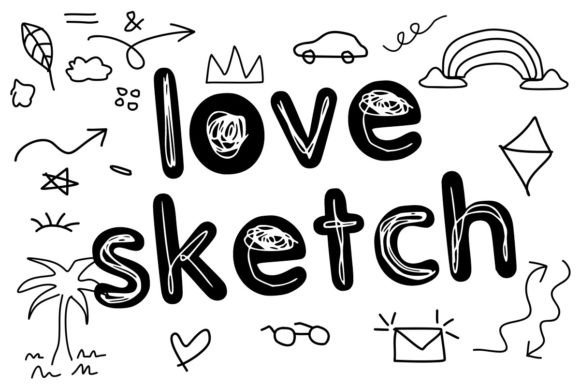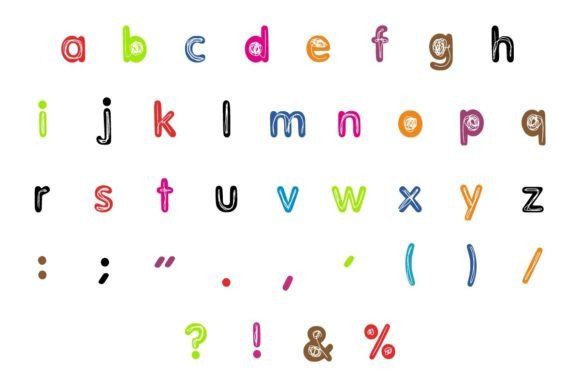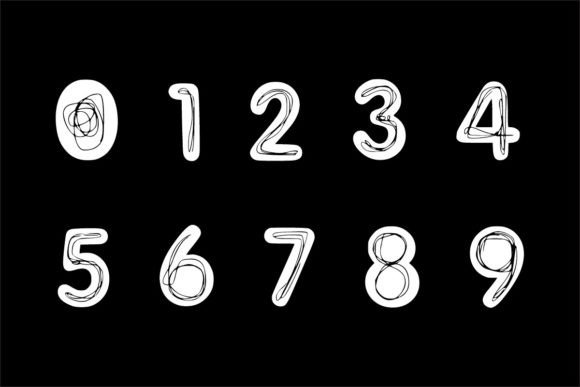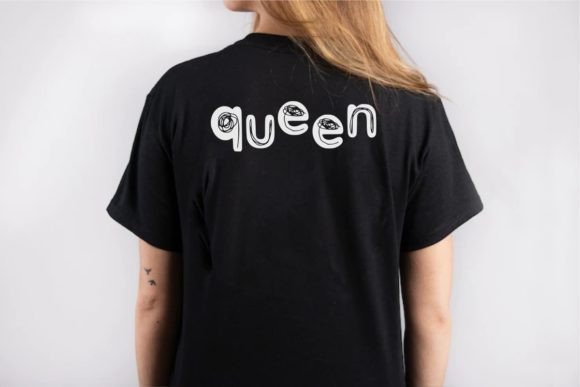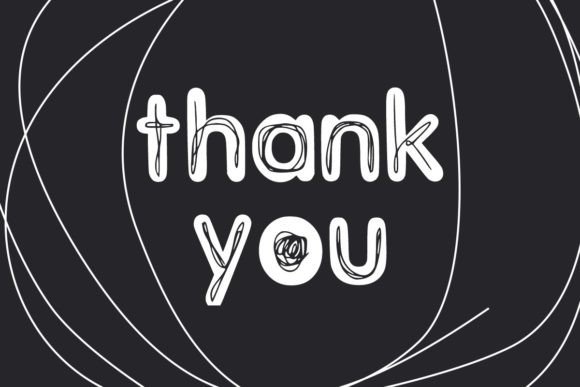
The Ultimate Guide to Drawing Book Font: Adding a Relaxed Touch to Your Creations
I’ll never forget the time I was working on a project for a client who wanted a fun, laid-back vibe for their brand. I had spent hours browsing through font libraries, but nothing seemed quite right. That was until I stumbled upon the Drawing Book font. Its cute, simple, and friendly lowercase handwritten display style instantly clicked with me, and I knew I had found the perfect fit. In this article, I’ll share my love for this font, its features, and how to make the most of it in your designs.
A Personal Review of Drawing Book Font
- ✨ The informal style and casual vibe make it perfect for projects that require a relaxed touch.
- ✅ The font is highly legible, even at smaller sizes.
- 💕 The cute and friendly aesthetic is sure to appeal to a wide range of audiences.
- 🎨 It’s incredibly versatile and can be used for various design projects, from branding to crafts.
While Drawing Book font is an excellent choice for many projects, there are a few things to keep in mind:
- ⚠️ The font is limited to lowercase letters, which might be a drawback for some projects.
- 🤔 Some users might find the font too casual or childish for certain applications.
One of the best things about Drawing Book font is its support for OpenType features and glyphs. These features allow you to add more variety and personality to your text. Some common OpenType features include:
- Ligatures: These are special character combinations that can be used to replace certain letter pairs.
- Stylistic alternates: These are alternative glyphs that can be used to add more variation to your text.
- Swashes: These are decorative elements that can be used to add more flair to your text.
The Backstory of Drawing Book Font
Drawing Book font was designed with the intention of creating a friendly, approachable font that would be perfect for everyday design projects. The designer wanted to create a font that would feel like a warm hug, something that would make readers feel comfortable and at ease. With its cute, simple, and friendly aesthetic, Drawing Book font is sure to become a go-to choice for designers and crafters alike.
Q: Is Drawing Book font suitable for body text?
A: While it’s legible, Drawing Book font is best used for headings, titles, and short paragraphs due to its casual, display nature.
Q: Can I use Drawing Book font for crafting and DIY projects?
A: Absolutely! Drawing Book font is perfect for crafting and DIY projects, such as making signs, cards, and other paper crafts.